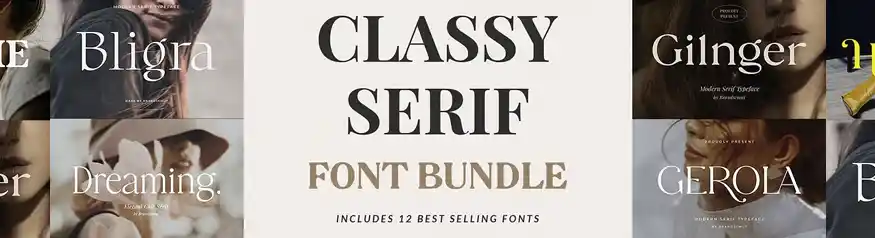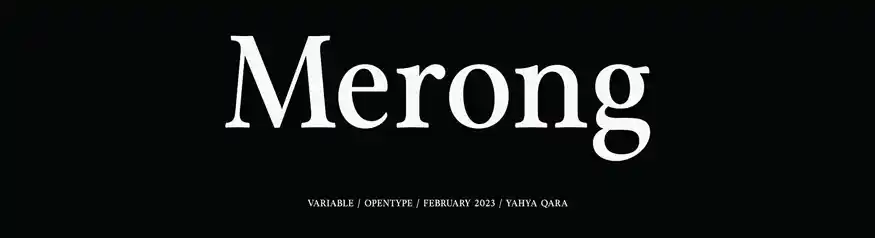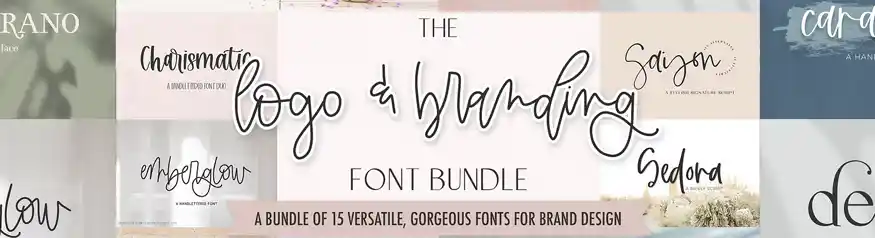
Best font bundles for logo designers
Best Font Bundles for Logo Designers on Creative Market (2026)
Best font bundles for logo designers on Creative Market
Buying fonts one by one is expensive. A single premium font can cost $30 or more on its own. That is why font bundles for logo designers are such a smart move. In fact, the right bundle gives you dozens of commercial-licensed fonts for the price of one or two individual files. Furthermore, you get more style options to serve different clients and brand types. Creative Market is one of the best places to find these bundles. The quality is high, the licences are clear, and the variety is huge. In this post, we tested three of the best picks for 2026.
Top Font Bundles for Logo Designers on Creative Market
Each bundle below is chosen for logo work specifically. That means clean files, solid commercial licences, and styles that work at small sizes. Together, these three picks cover display logos, brand identity work, and high-end serif branding. Let’s look at each one.
Merong Family (24 Fonts) — by Yahya-type
The Merong Family gives you a complete type system in one download. Specifically, you get 24 font styles that range from bold display weights to lighter, more refined cuts. This makes it very easy to build full brand systems without leaving the family. As a result, your logos stay consistent across headings, subheadings, and body text. The broad range of weights also means you can serve many different brand personalities — from bold and modern to clean and minimal. Therefore, this bundle is a strong pick for designers who take on varied client work.
The Logo and Branding Font Bundle — by Beck McCormick
This bundle is built from the ground up for logo and brand design. In fact, Beck McCormick is a well-known type designer on Creative Market, and this collection shows exactly why. You get 15 fonts that mix scripts, serifs, and clean sans-serifs. Furthermore, each font is designed to pair well with the others. This makes font pairing much faster and easier. As a result, you spend less time testing combinations and more time designing. The commercial licence also covers client work, so you can deliver these fonts in final logo files without any problems.
Classy Serif Font Bundle — by BrandSemut
Serif fonts remain the top choice for high-end and luxury brand logos. Specifically, the Classy Serif Font Bundle by BrandSemut gives you 12 of the best-selling serif styles in one package. Each font has a clean, elegant feel that works very well for premium brand identities, wedding businesses, and boutique shops. In addition, each font comes with ligatures and alternate characters. This means you can fine-tune letterforms to make logos feel completely unique. Together, these 12 fonts cover a wide range of elegant brand moods — from refined and editorial to warm and inviting.
How These Font Bundles Compare
Not every bundle suits every project. Therefore, use this table to find the right pick for your specific needs and budget.
Best ForDisplay logos, full brand systemsBrand identity, client workLuxury and high-end brands
What to Look for in Font Bundles for Logo Designers
Not all font bundles are equal. Some look great in previews but fall apart in real logo work. Therefore, here are the three most important things to check before you buy.